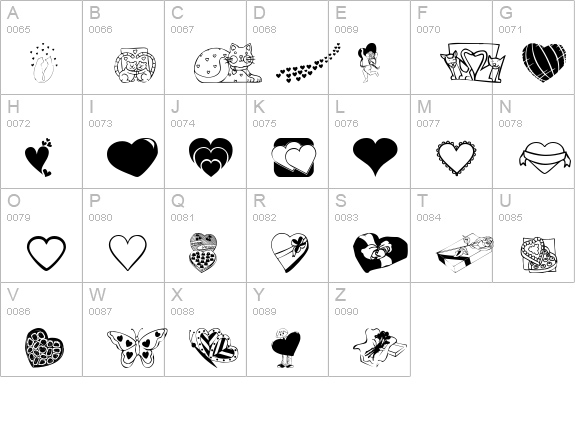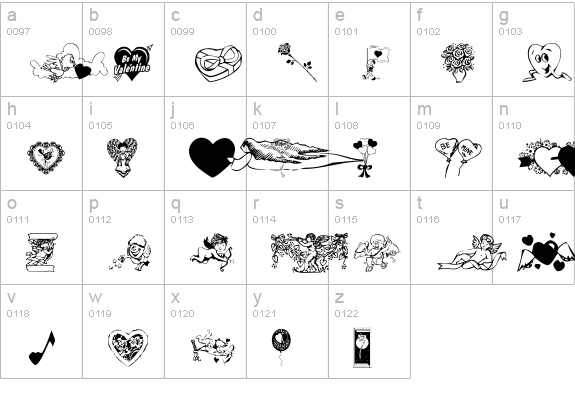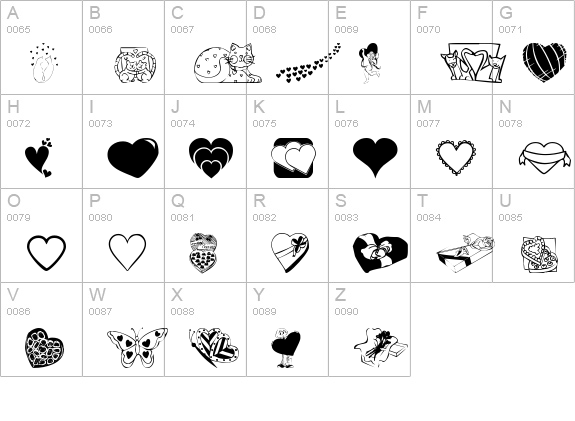
KR Be Mine Again Font Details
KR Be Mine Again font is a charming and elegant typeface that exudes a sense of romance and nostalgia. Its delicate curves and graceful strokes make it perfect for adding a touch of love and sweetness to your designs. This font is ideal for creating wedding invitations, greeting cards, love letters, and more. What makes KR Be Mine Again font even more appealing is that it is available for free download at FontsMarket.com. You can easily access this beautiful font and use it in your projects without any cost. Embrace the warmth and beauty of KR Be Mine Again font in your creations and let its timeless elegance captivate your audience.